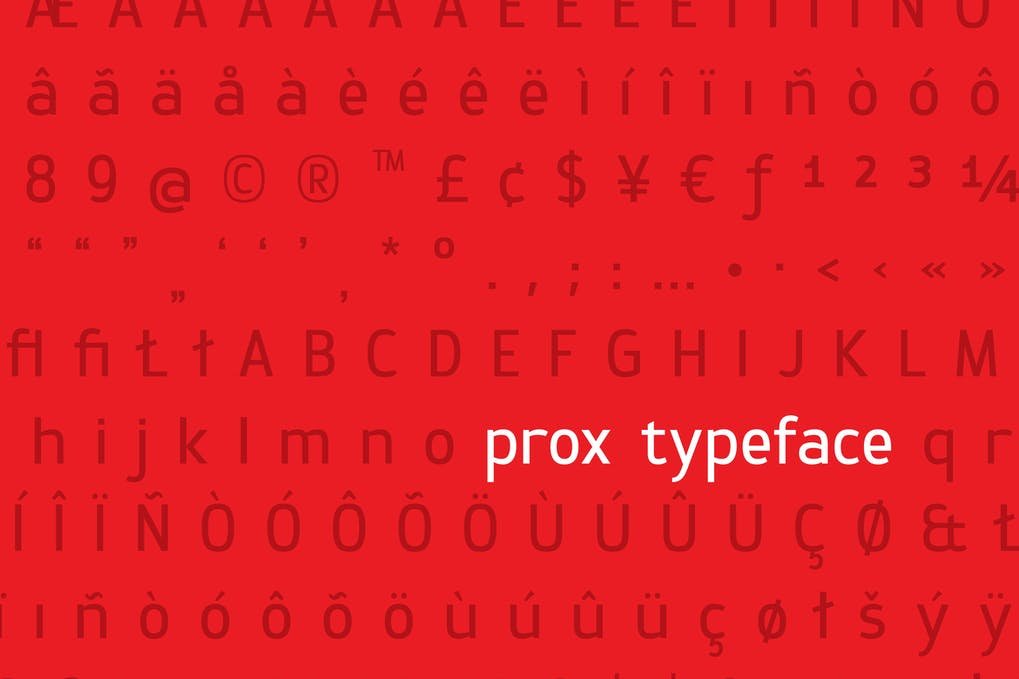
Prox Font
Prox Font is a contemporary sans serif typeface with a narrow width that is well suited for text settings in both large and small sizes. With a slightly squared proportion, Prox stands out as an original choice yet the regular letterforms lend it a familiar feel.